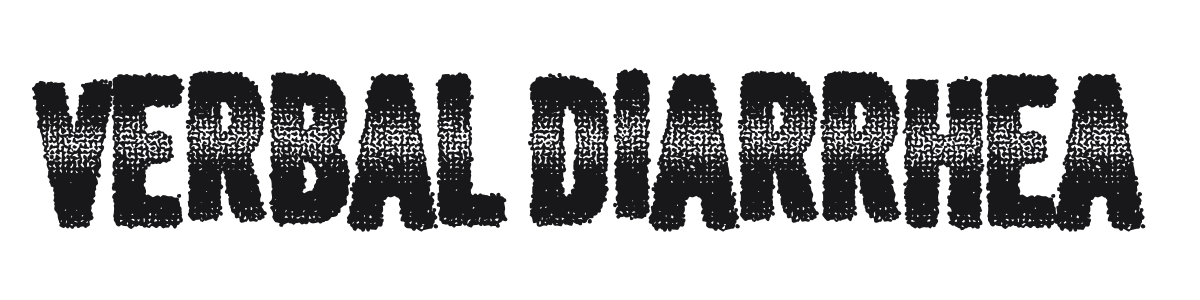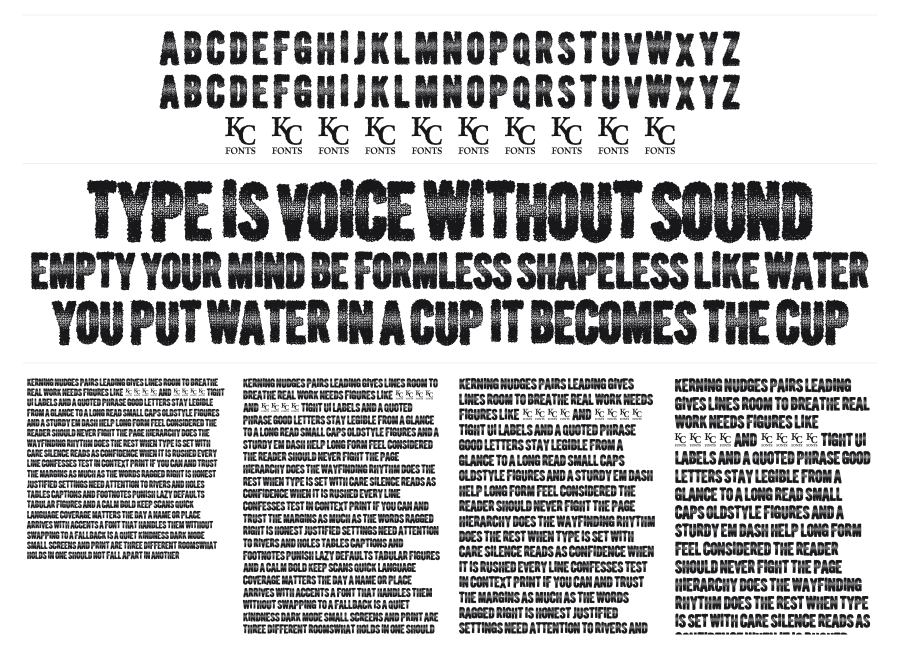
Verbal Diarrhea
Verbal Diarrhea is a heavily distressed display font built on a bold condensed slab-serif skeleton. Every character is coated in a dense, granular erosion texture that evokes degraded photocopies, worn stamps, or overinked letterpress. It carries an unmistakable underground energy that suits punk, metal, and street-culture aesthetics.